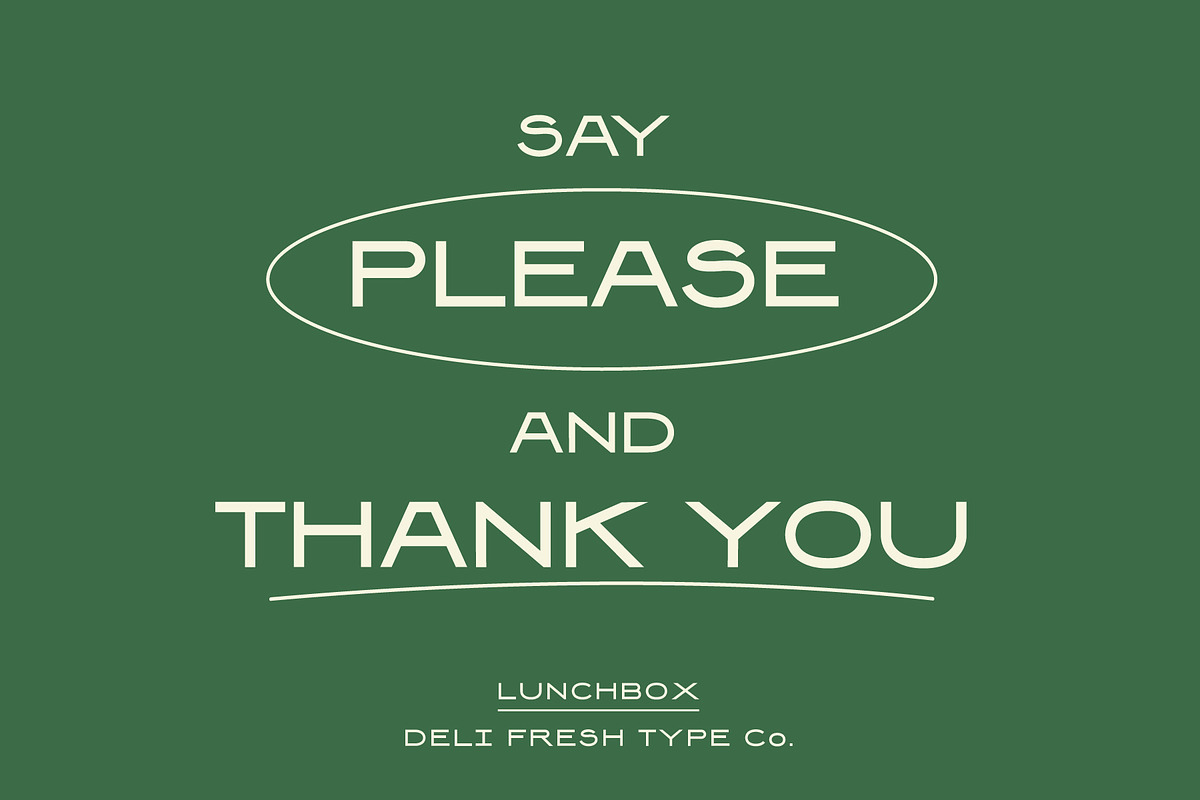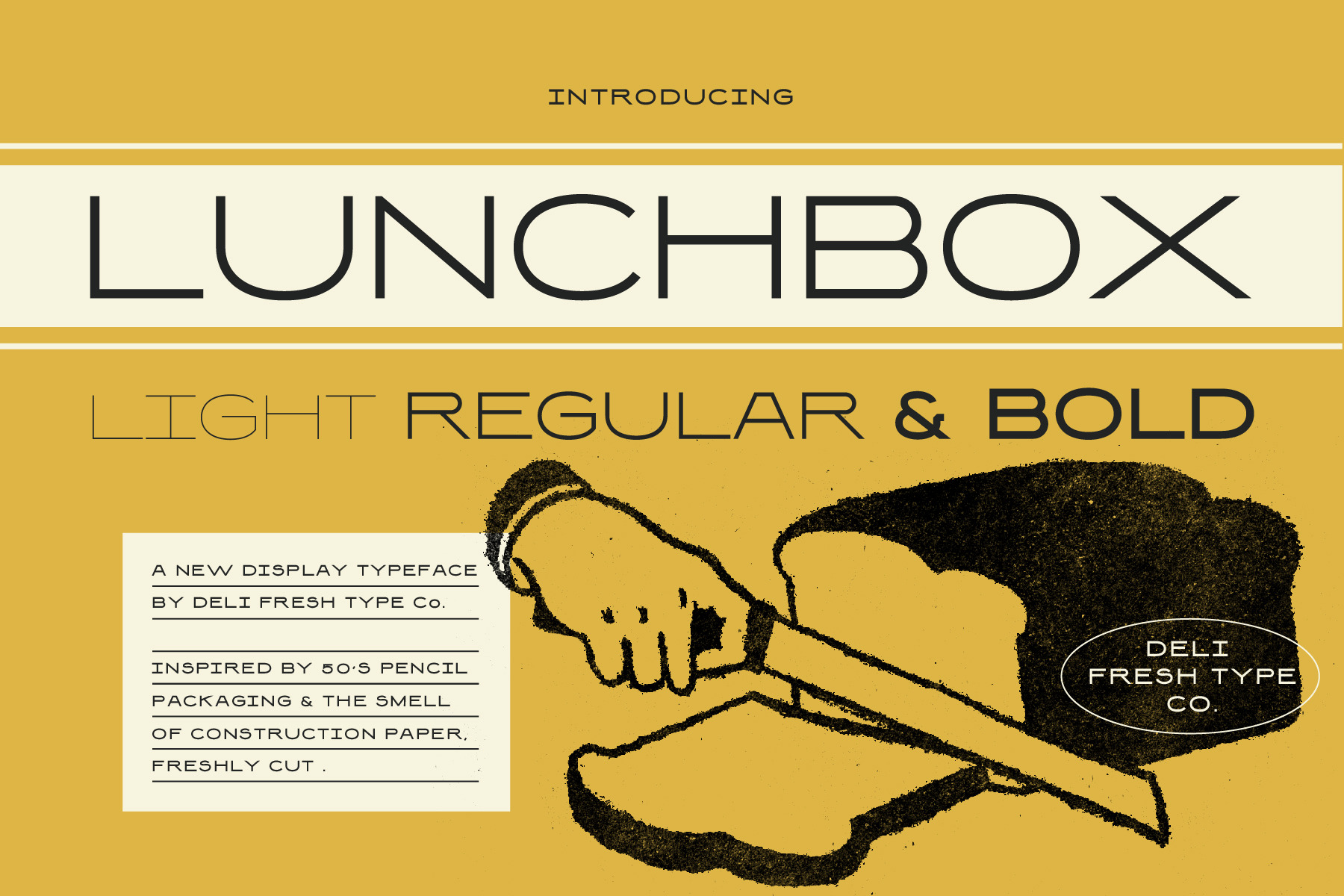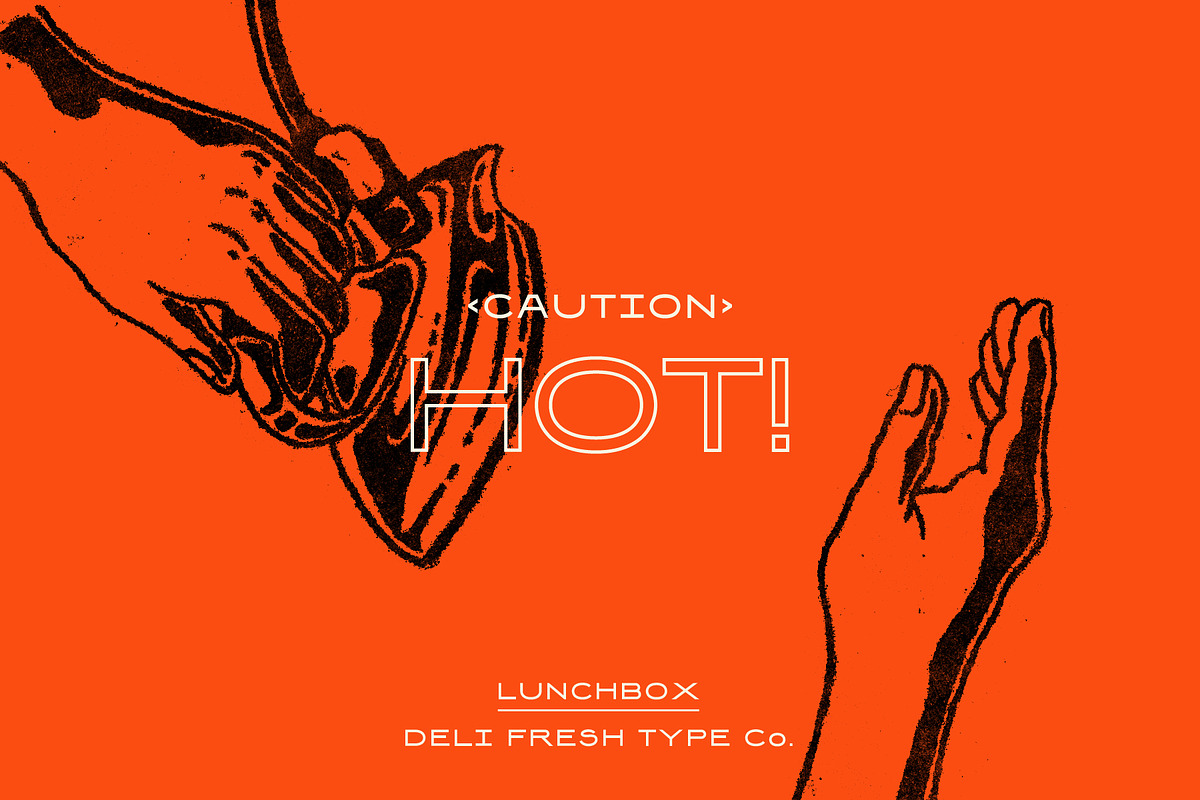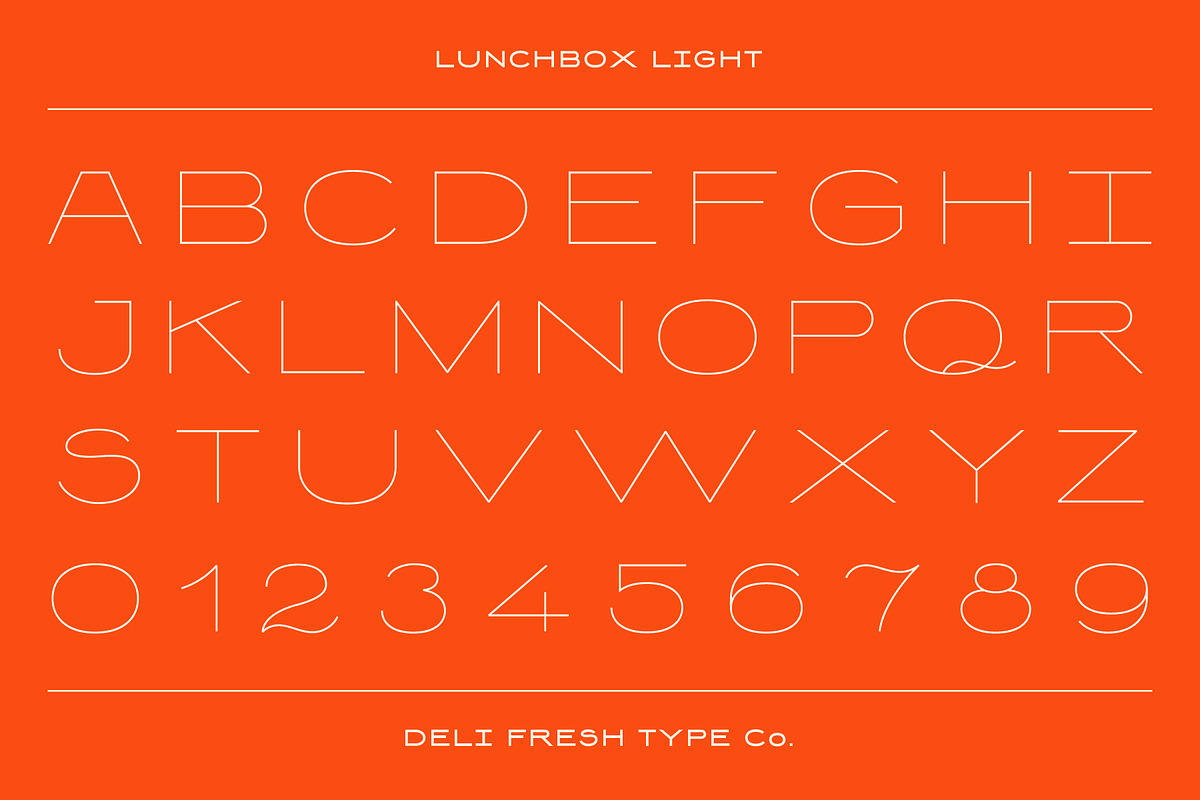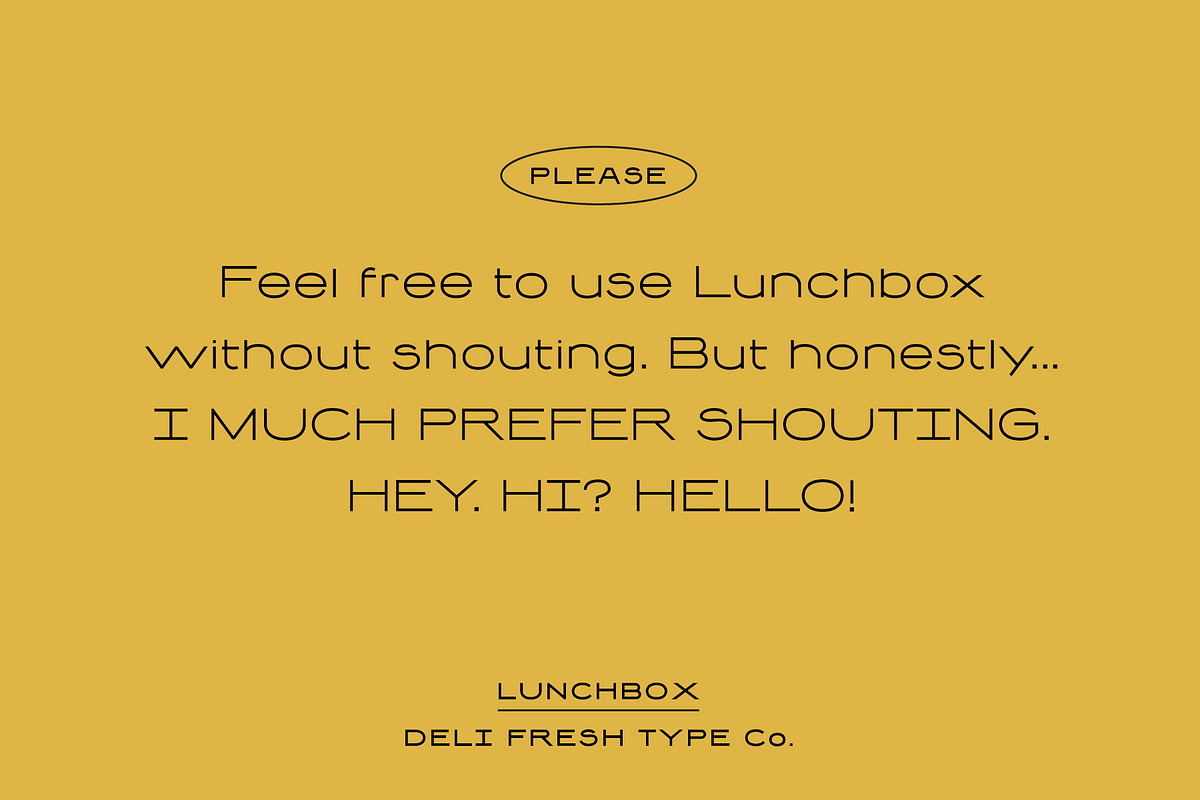
Lunchbox: A Simple Retro Font
A new display typeface by Deli Fresh Type Co.
Inspired by 50's pencil packaging and the smell of freshly cut construction paper. This vintage dream comes with upper-case letterforms, lower-case letterforms, numerals, and a smattering of special characters.